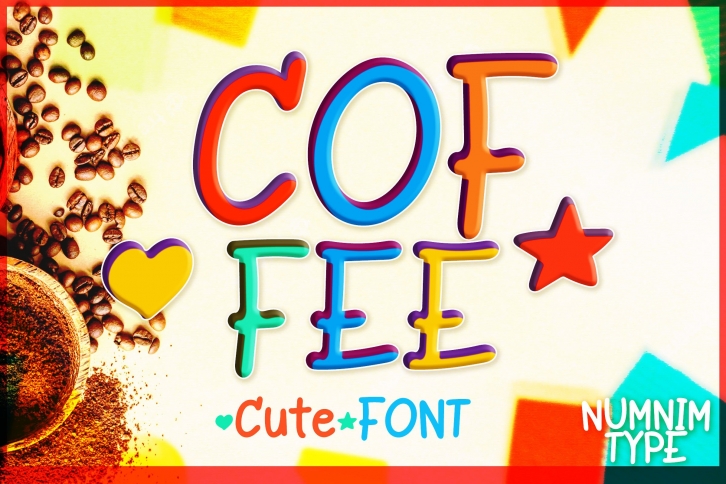
Coffee is a cute and uniquely crafted handwritten font. Its fun and playful characters make it the perfect font for stickers, mugs, t-shirts, ornaments, summer event cards, and more!